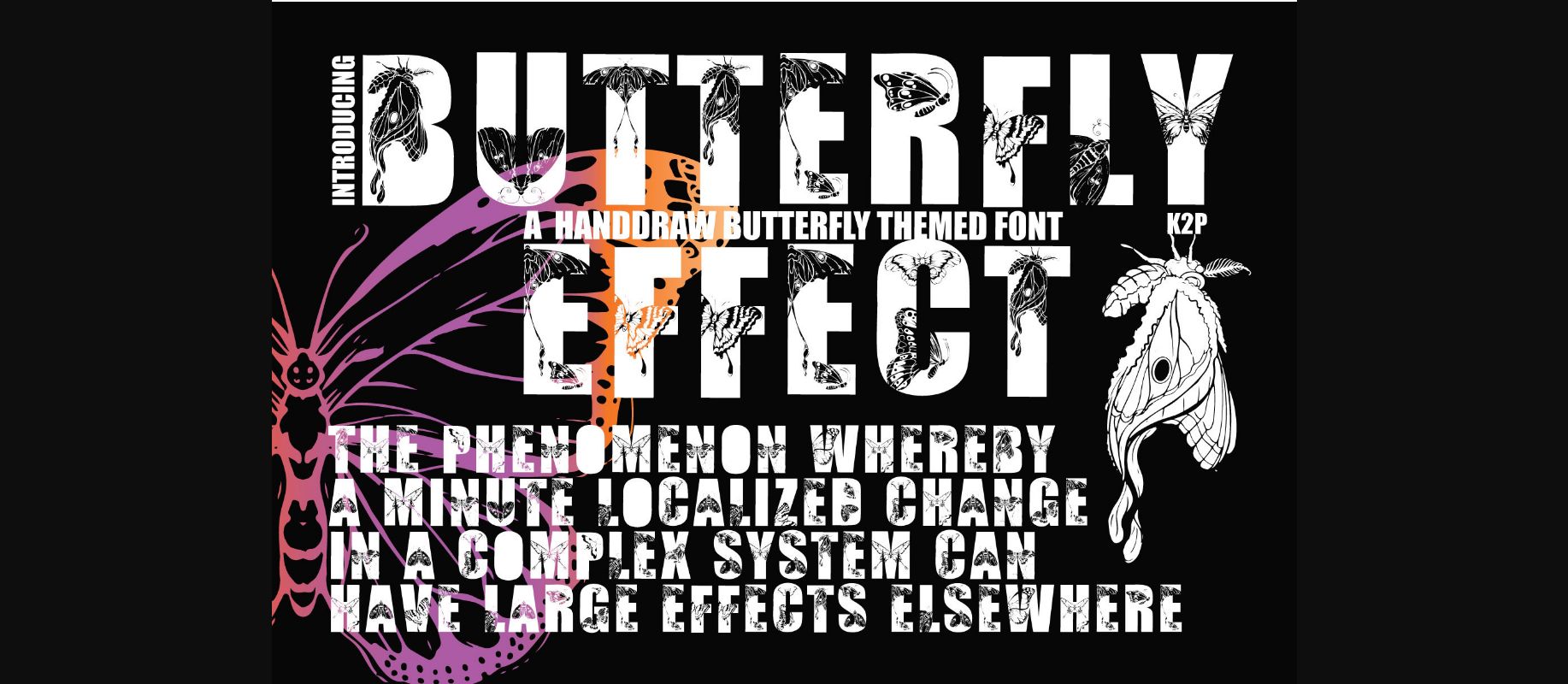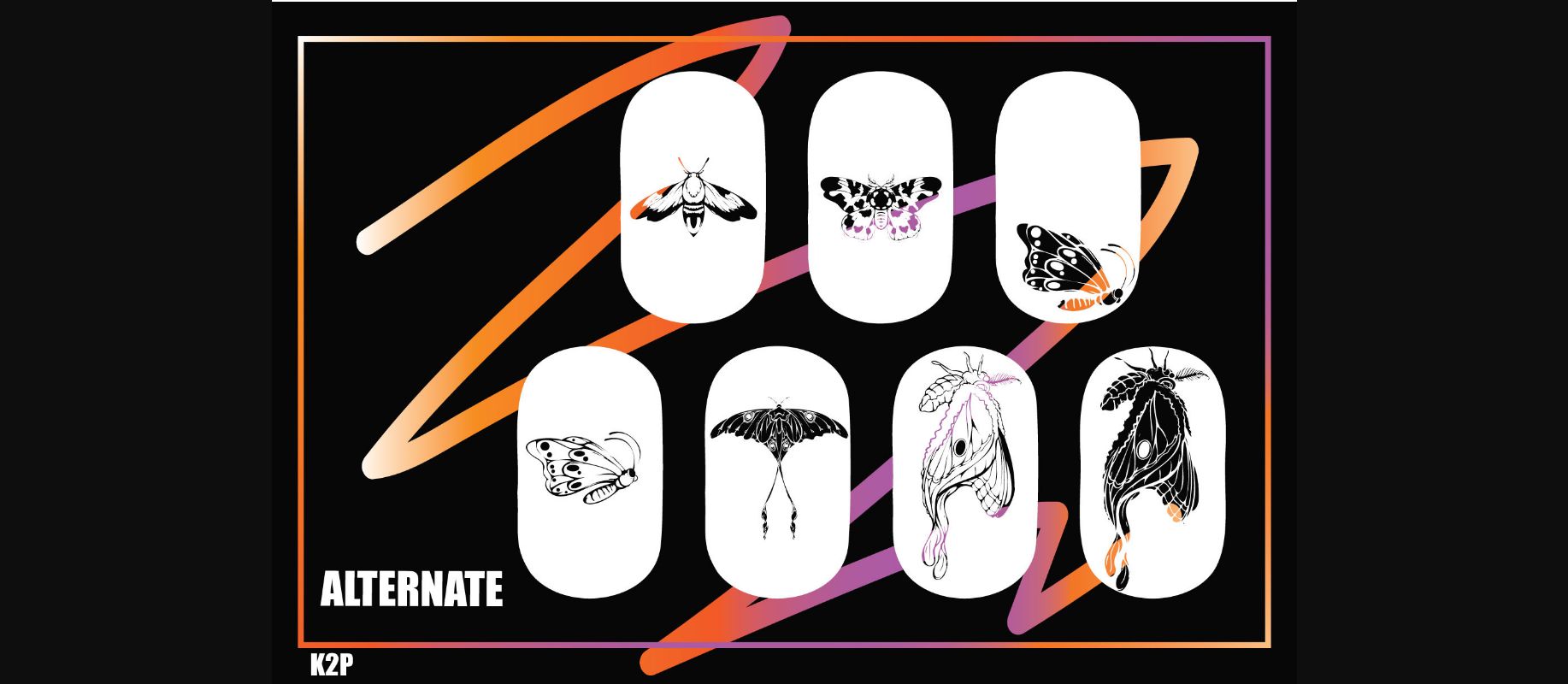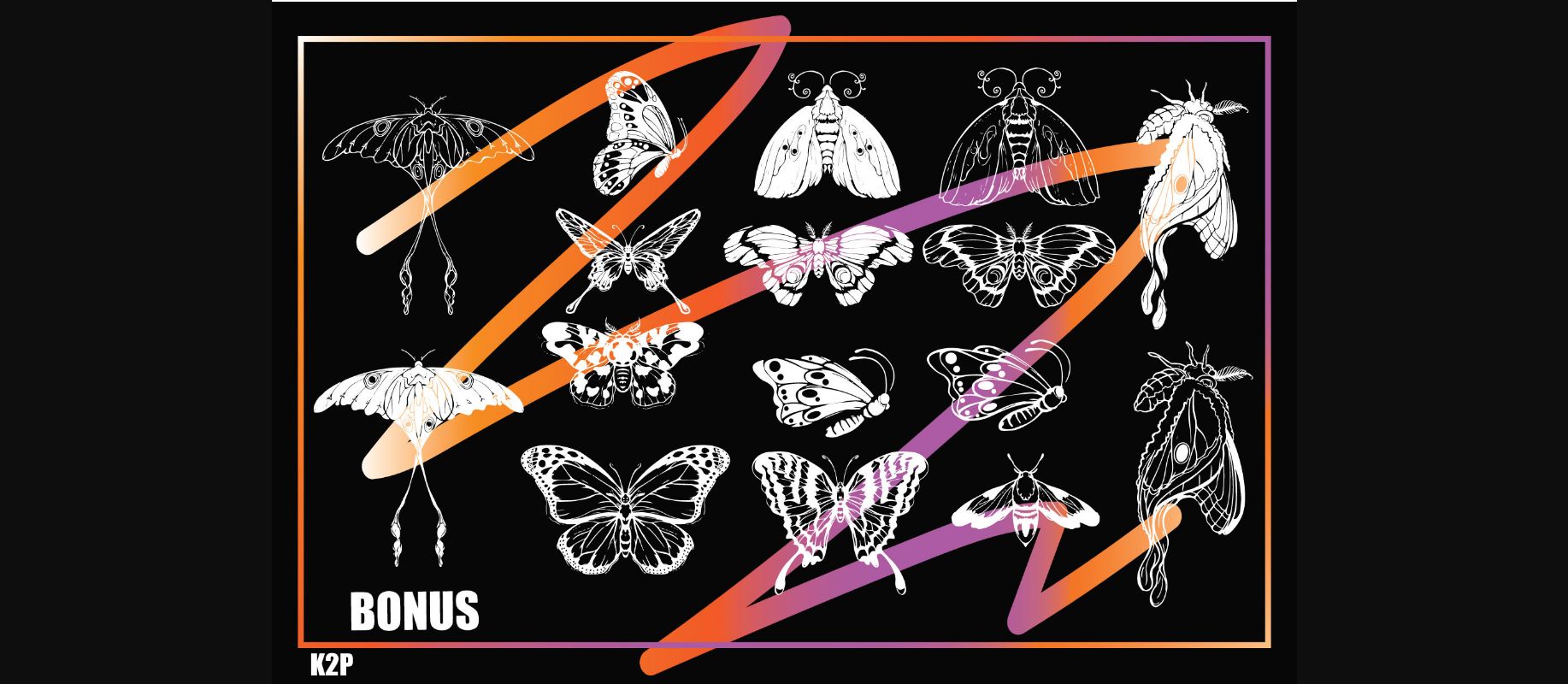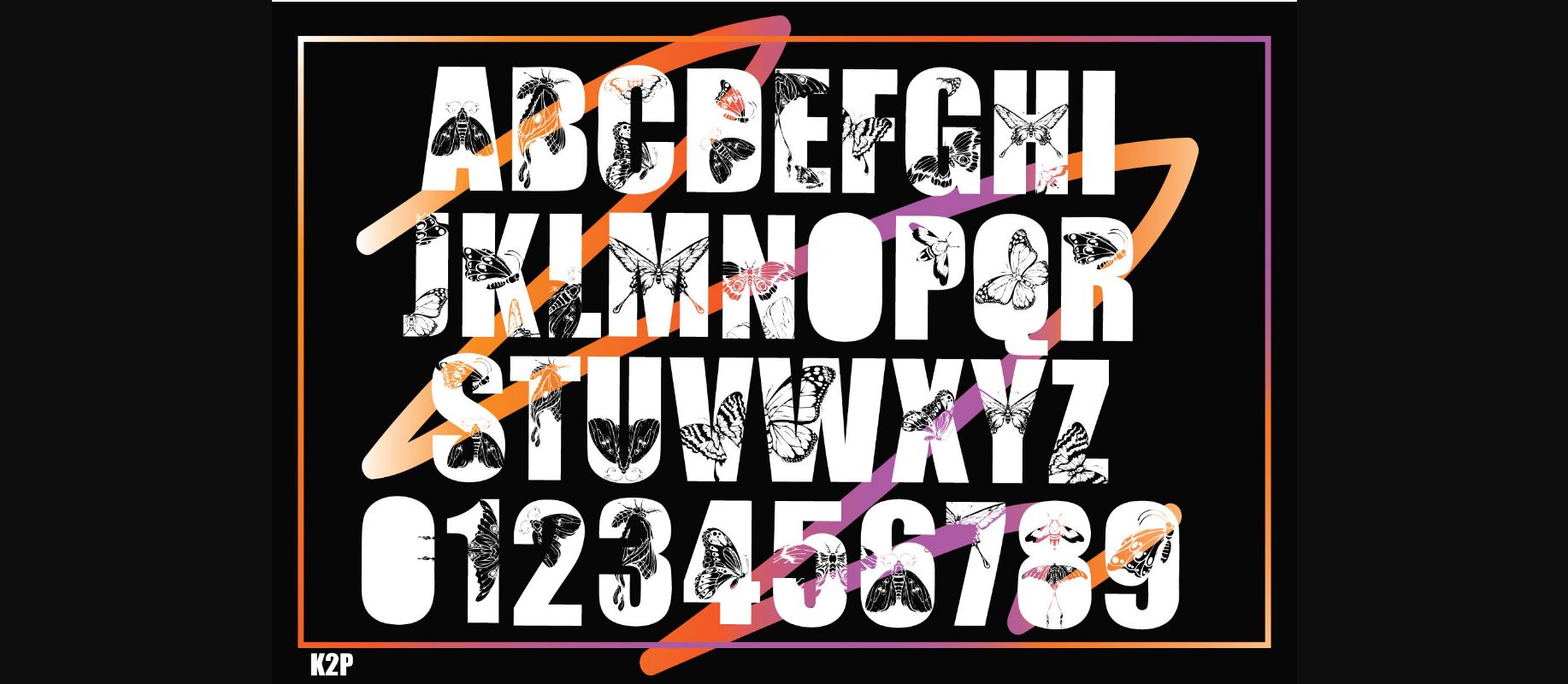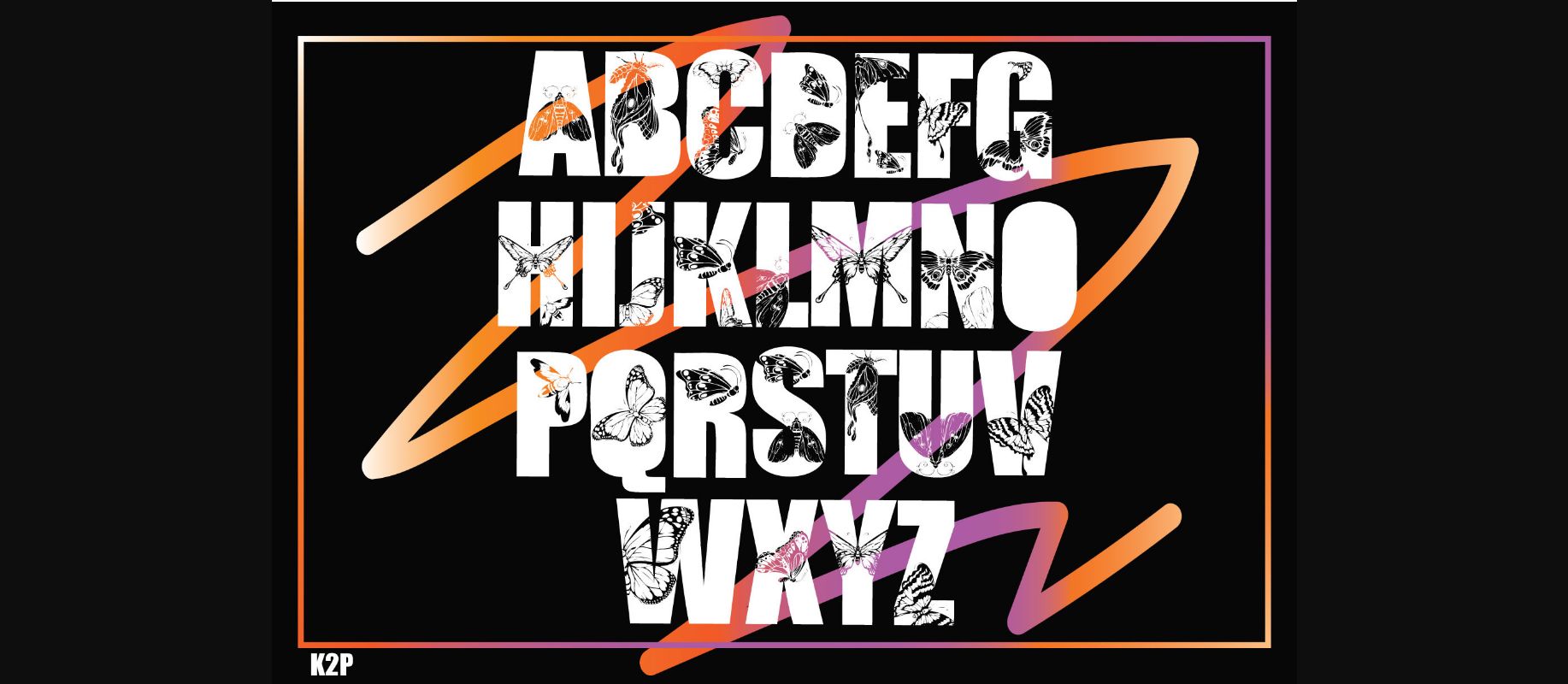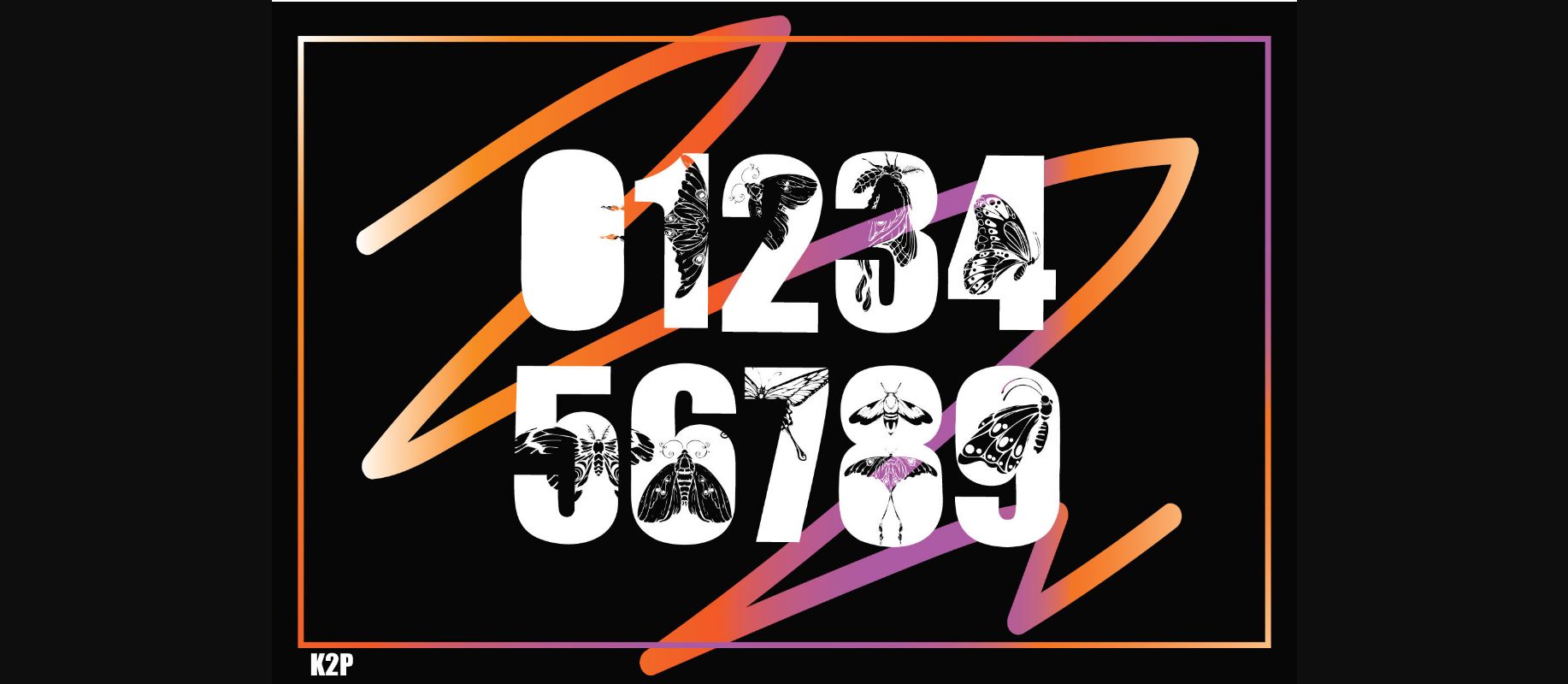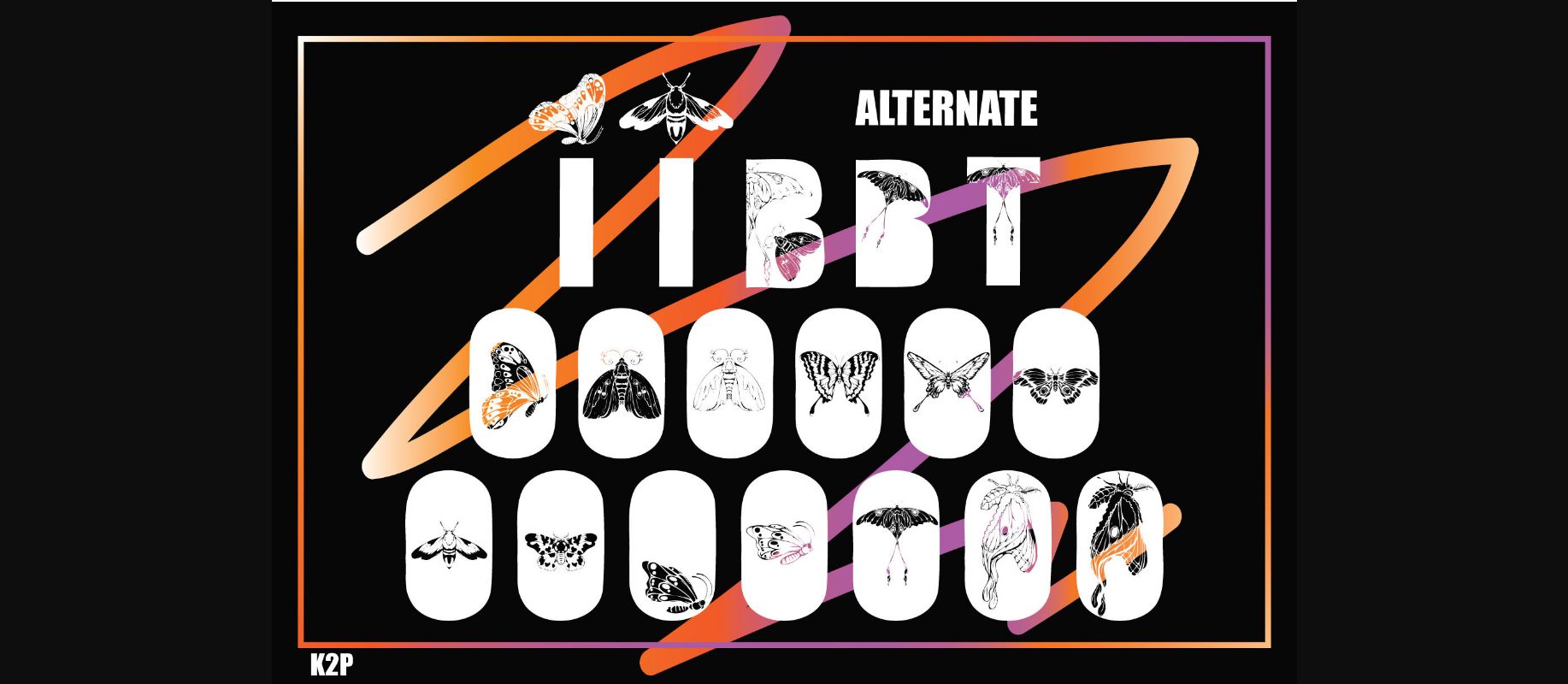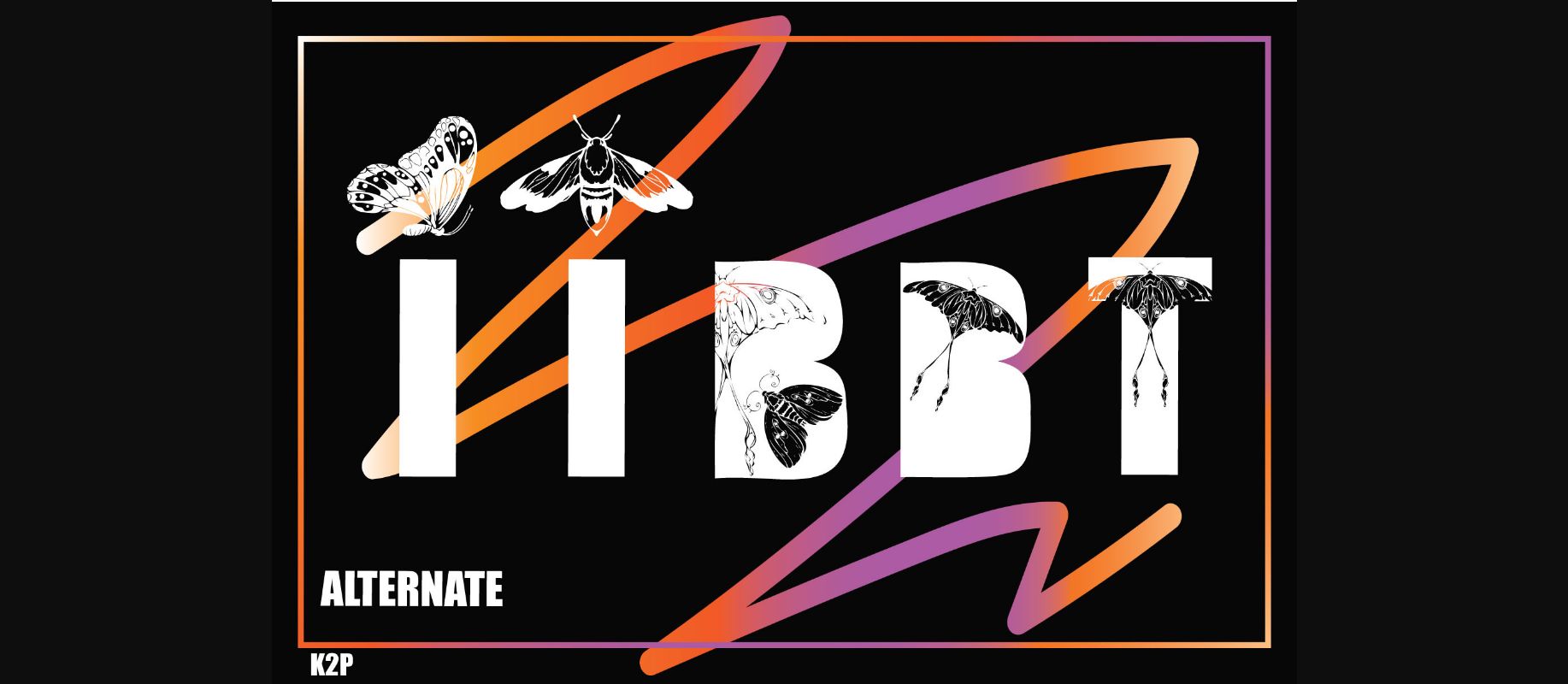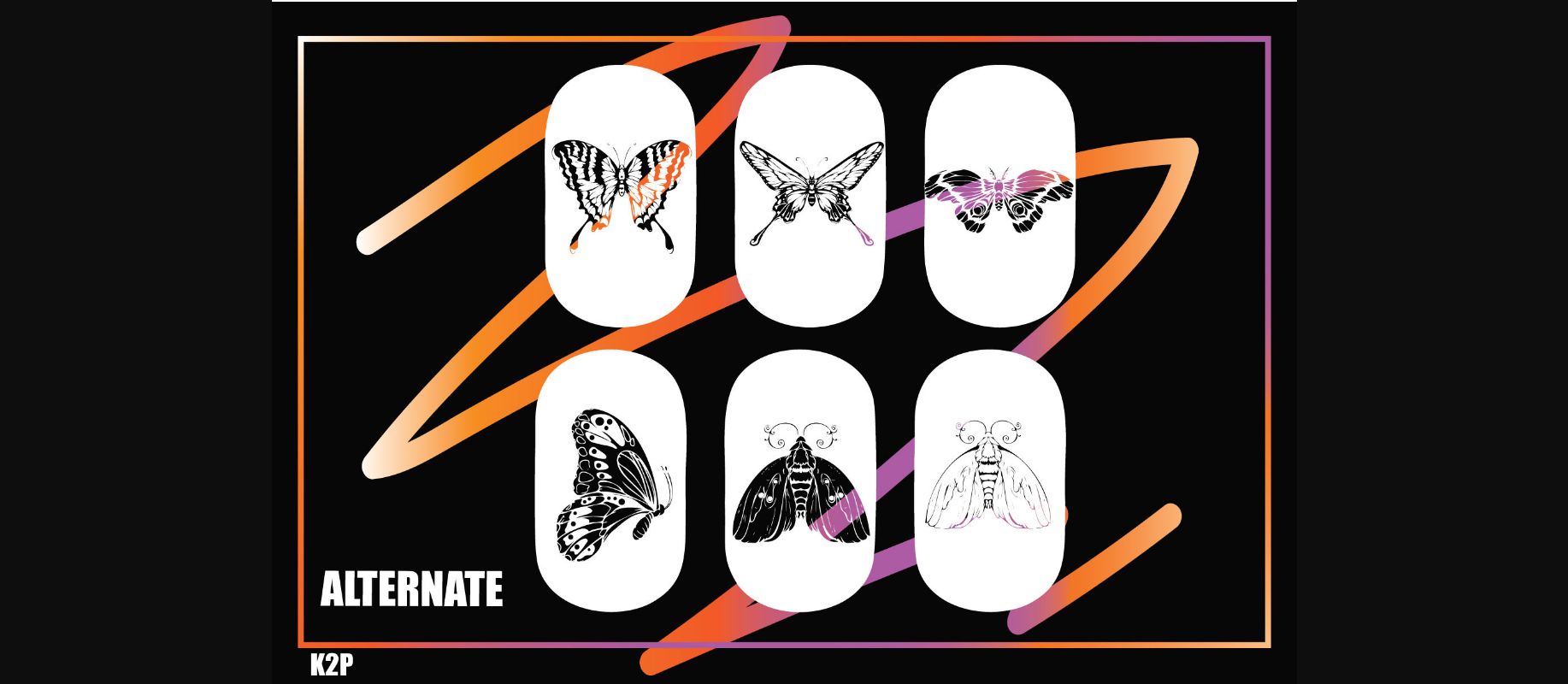
Butterfly Effect Font
About Butterfly Effect Font
Butterfly Effect is a cool, thick lettered and neat decorative font. It is PUA encoded which means you can access all of the glyphs and swashes with ease!